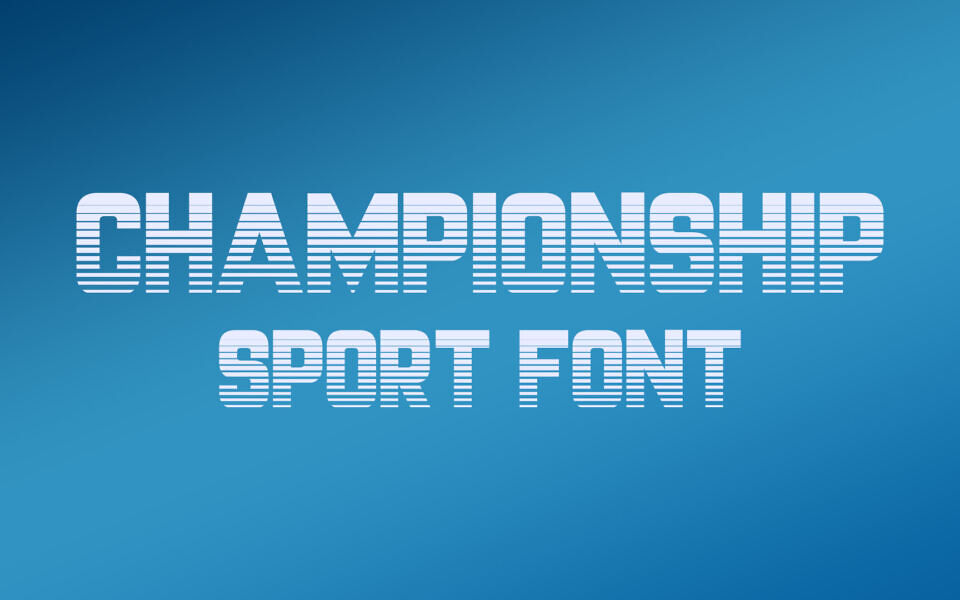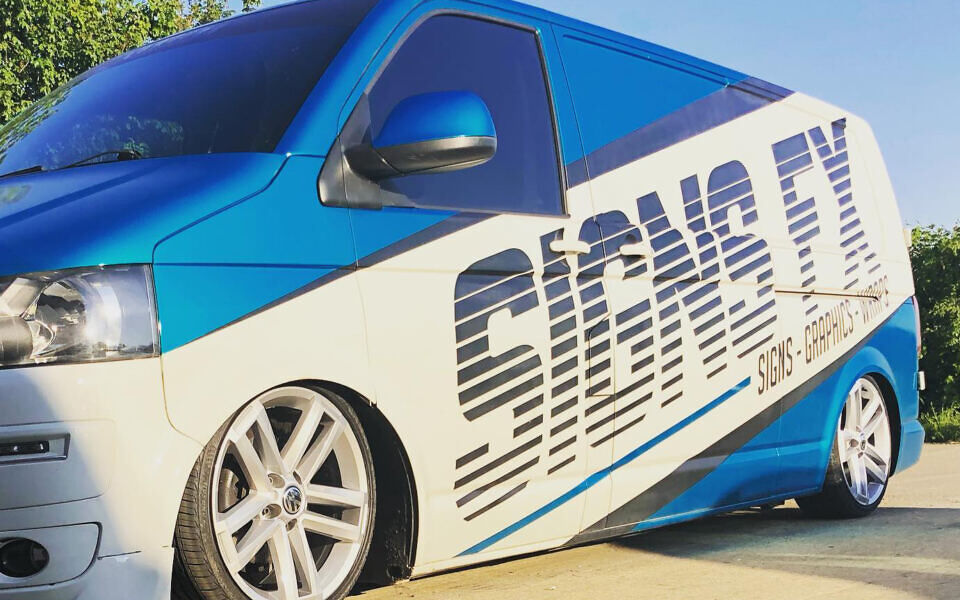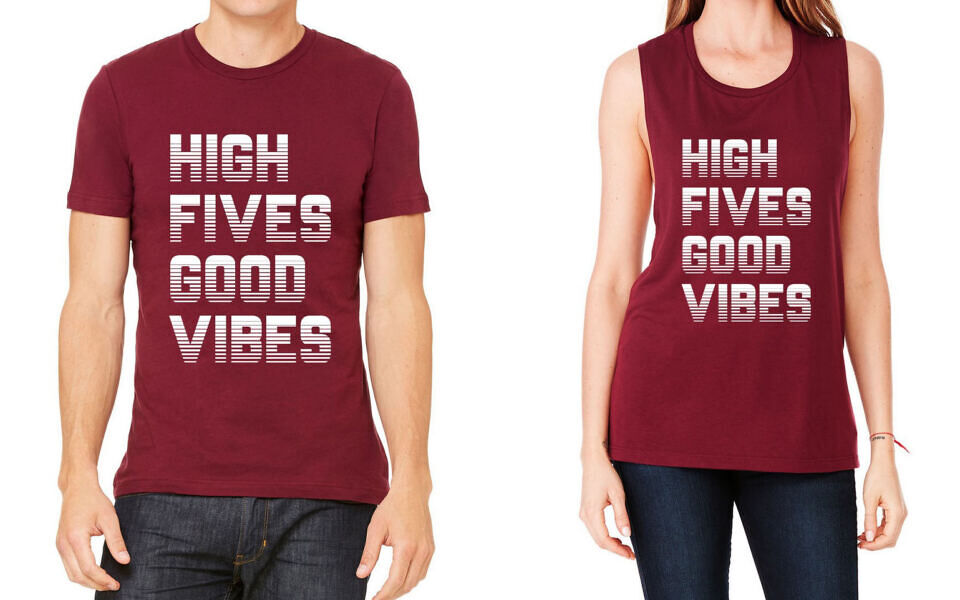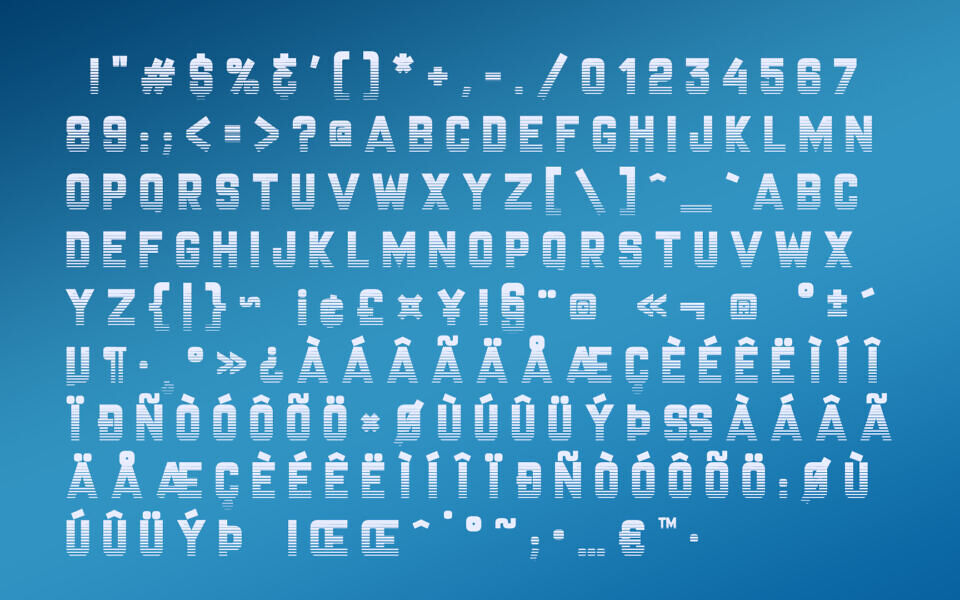
Championship Font
Championship is a bold old-school display font inspired by vintage sports branding and retro varsity aesthetics. Its strong letterforms, sharp edges, and athletic character make it perfect for team logos, championship posters, jerseys, headlines, and streetwear designs. The font delivers a classic competitive spirit while maintaining a clean, impactful look that stands out across both print and digital projects.